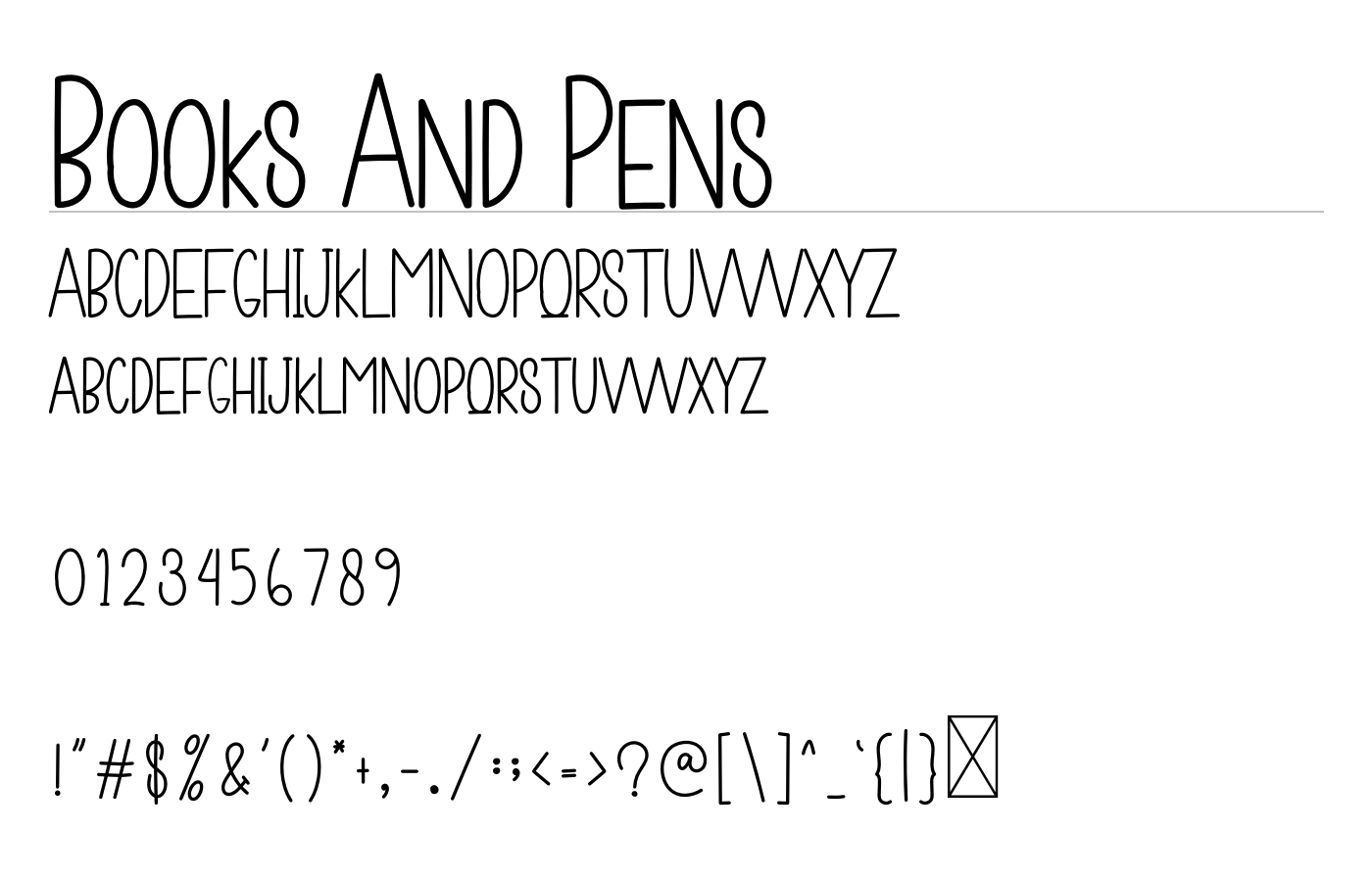
Books And Pens is a playful, narrow sans serif font with a hand-drawn feel, featuring tall, slender letterforms and fine, consistent strokes. Its casual, friendly style makes it perfect for creative projects, children's books, or informal branding where a personal, approachable touch is desired. This font works well in headlines, logos, and designs that need a whimsical yet clean look.
Books And Pens Font